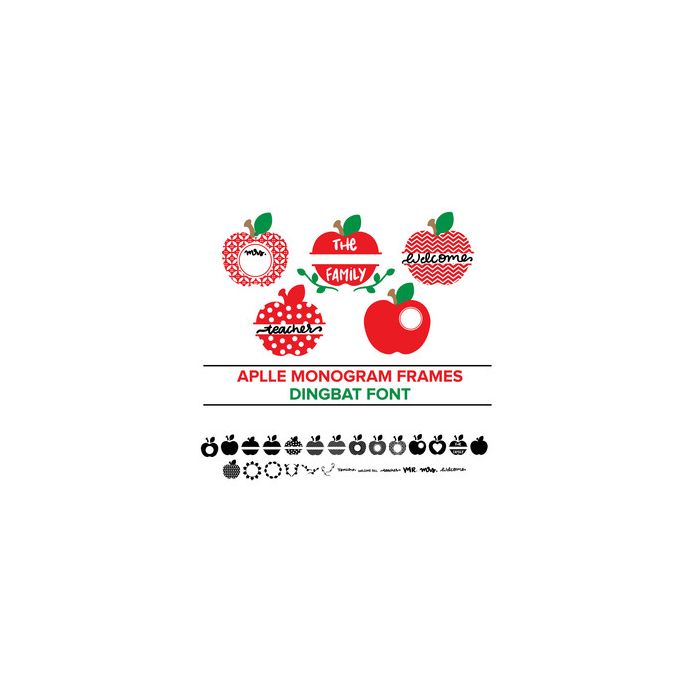
This dingbat font comes in OTF format. Each letter (A-Z and a-z) coordinates with a shape. These shapes is very intricate. Please make sure your blade is sharp and your settings are correct.